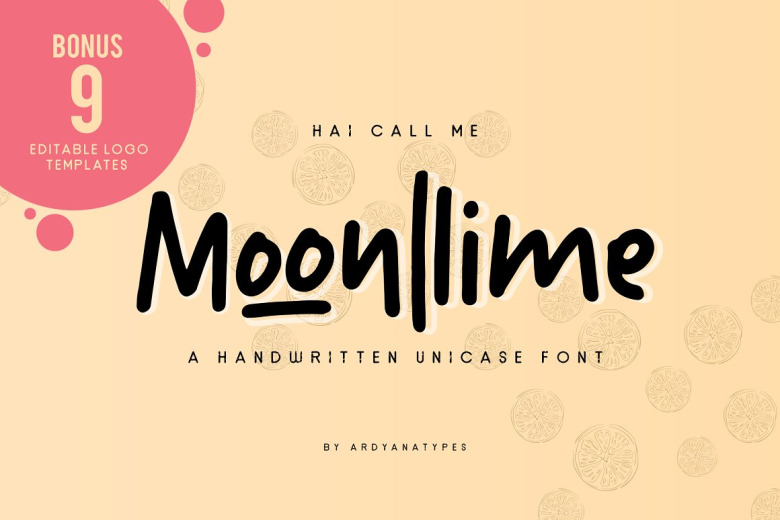
Moonllime Font
Moonllime is a beautiful and effortless handwritten font with a unique elegance. comes with very interesting hand strokes, moonllime has 3 variants including moonllime solid, chalk and oulinet, which will give you many choices to use in each of your designs, moonllime also has many opentype features that you will like, this font is very suitable as a logo , quotes, clothing designs, wedding invitations, and more. You can play with ligatures, alternative styles, swash, etc. to make your own custom letters.
Moonllime Handwritten Font